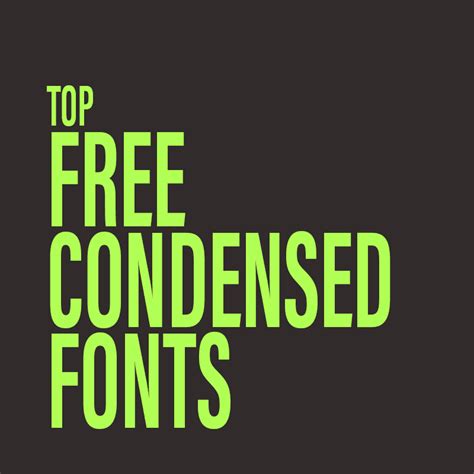
Nice Condensed Fonts. Condensed fonts have letters that are closer together than normal. Tighter character spacing is similar to.
Tighter character spacing is similar to. Condensed fonts have letters that are closer together than normal.
Condensed fonts have letters that are closer together than normal. Tighter character spacing is similar to. Condensed fonts have letters that are closer together than normal.